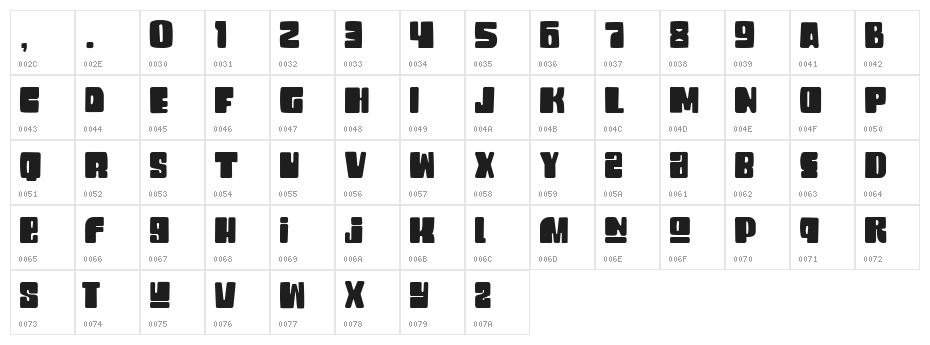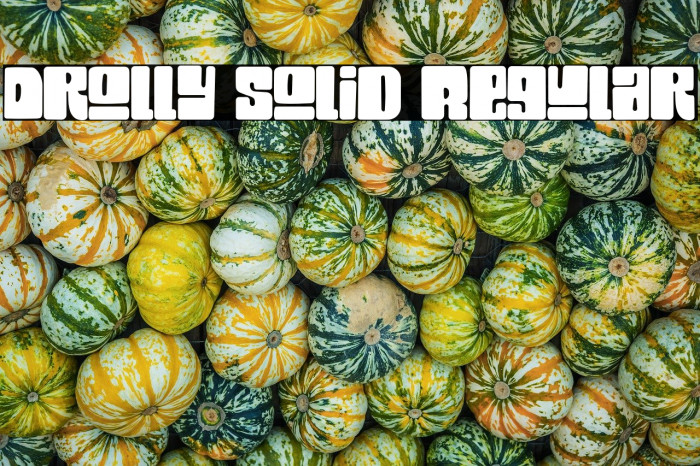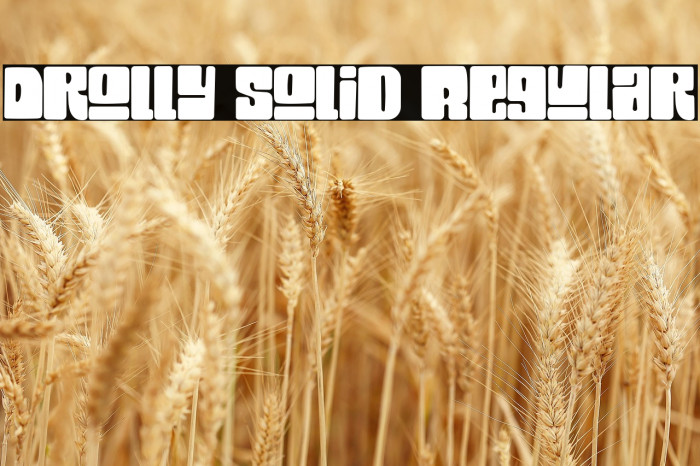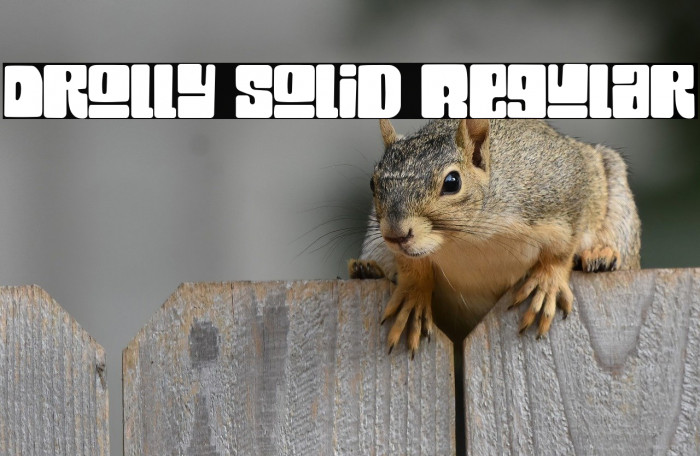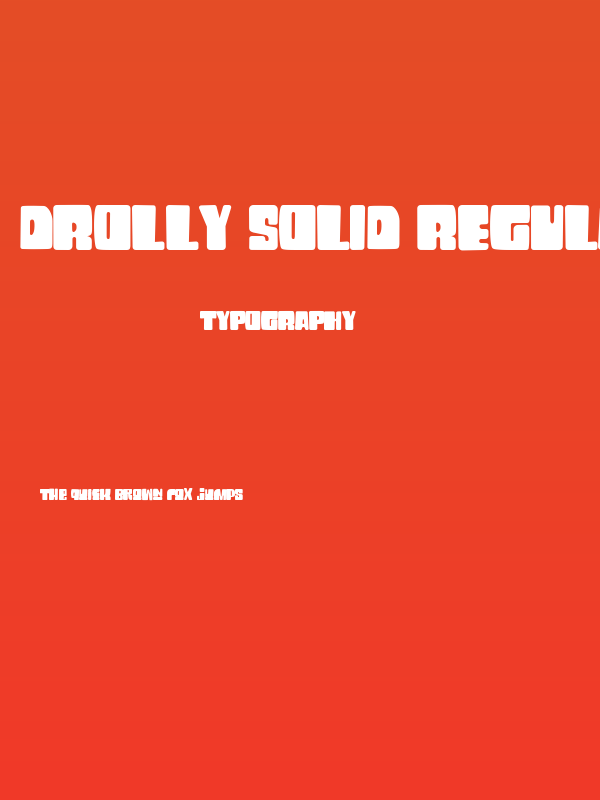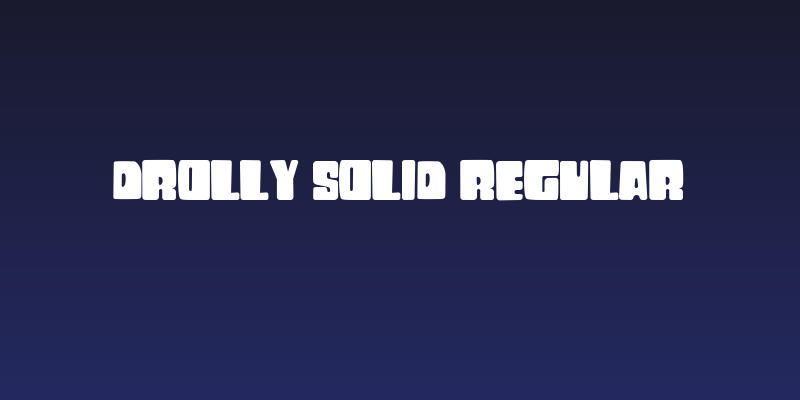
Drolly solid Regular Font
Drolly solid Regular Description
This font features a bold and playful design with thick, rounded characters that create a strong visual impact. The letters are uniformly wide, giving the font a monospaced appearance, although it is not strictly monospaced. The style is reminiscent of retro or vintage aesthetics, with a touch of modern flair. The characters are tightly spaced, enhancing the boldness and making it suitable for eye-catching headlines or titles. The numbers and special characters maintain the same bold and rounded characteristics, ensuring consistency across all glyphs.
| Overall Style | Retro, Modern |
| Proposed Projects | Ideal for retro-themed posters, playful branding, children's book covers, and eye-catching headlines. |